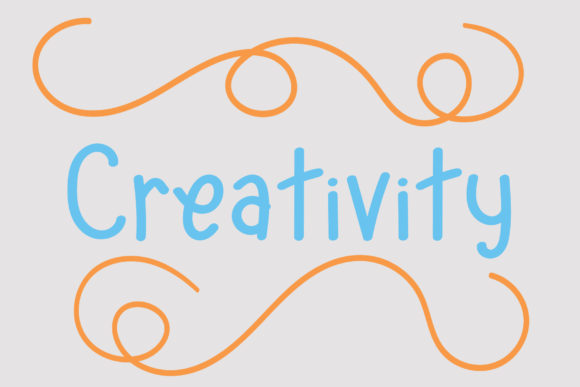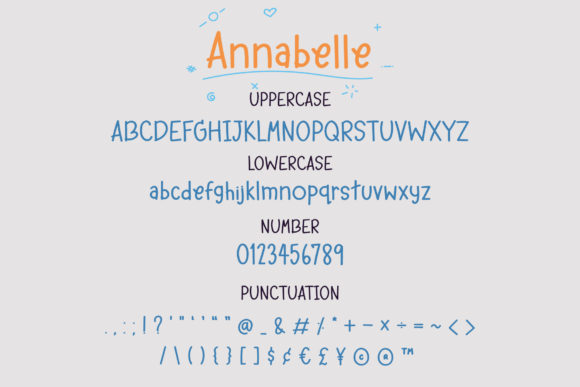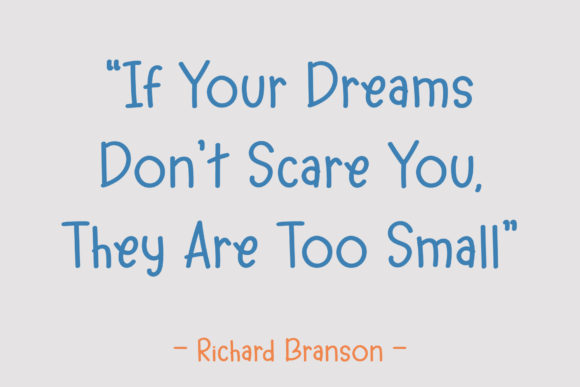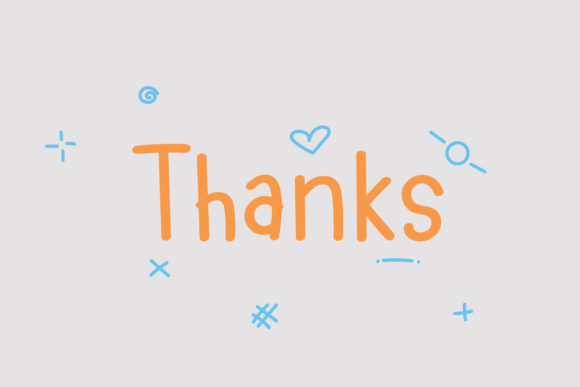
Introducing Annabelle Font: The Sweet and Versatile Handwritten Font
Are you looking for a font that can add a touch of warmth and personality to your designs? Look no further than Annabelle Font, a beautiful handwritten font that is sure to become a favorite in your collection. With its casual charm and versatility, Annabelle is the perfect choice for a wide range of design projects.
The Characteristics of Annabelle Font
Annabelle Font is a carefully handcrafted font that boasts a sweet and versatile handwritten style. Its casual charm makes it appear wonderfully down-to-earth, giving your designs a friendly and approachable feel. The font’s unique characteristics include:
- Handwritten style: Annabelle Font is a genuine handwritten font, crafted with love and care to give your designs a personal touch.
- Casual charm: The font’s casual charm makes it perfect for designs that require a friendly and approachable tone.
- Versatility: Annabelle Font is highly versatile, making it suitable for a wide range of design projects, from headings and titles to body text and more.
The Benefits of Using Annabelle Font
So, why choose Annabelle Font for your designs? Here are just a few benefits of using this beautiful font:
- Easy to read: Annabelle Font is highly legible, making it perfect for use in body text, headings, and titles.
- Highly versatile: The font’s versatility means it can be used in a wide range of design projects, from digital media to print materials.
- Unique and creative: Annabelle Font’s handmade style gives your designs a unique and creative edge, setting them apart from the crowd.
How to Use Annabelle Font in Your Designs
Annabelle Font is an incredibly versatile font that can be used in a wide range of design projects. Here are a few ideas to get you started:
- Headings and titles: Use Annabelle Font to create eye-catching headings and titles that grab attention and add personality to your designs.
- Body text: The font’s legibility makes it perfect for use in body text, adding a touch of warmth and personality to your written content.
- Signage and branding: Annabelle Font is perfect for use in signage and branding projects, giving your business a friendly and approachable image.
- Digital media: The font is highly suitable for use in digital media, including social media graphics, email marketing, and more.
Tips for Getting the Most Out of Annabelle Font
To get the most out of Annabelle Font, here are a few tips to keep in mind:
- Experiment with colors: Annabelle Font looks great in a wide range of colors, so don’t be afraid to experiment and find the perfect hue for your design.
- Mix and match: Try pairing Annabelle Font with other fonts to create a unique and creative look.
- Use it in combination with images: The font’s casual charm makes it perfect for use in combination with images, adding a touch of personality to your designs.
In conclusion, Annabelle Font is a sweet and versatile handwritten font that is sure to become a favorite in your collection. With its casual charm, versatility, and highly legible style, it’s the perfect choice for a wide range of design projects. Whether you’re a designer, crafter, or simply someone who loves typography, Annabelle Font is a must-have font that is sure to inspire and delight.
Key Features of Annabelle Font
- Handwritten font with a casual and friendly style
- Highly legible and versatile
- Suitable for a wide range of design projects, including headings, titles, body text, and more
- Perfect for use in digital media, print materials, signage, and branding
Whether you’re looking to add a touch of warmth and personality to your designs or simply want to try out a new font, Annabelle Font is an excellent choice. So why not give it a try and see the difference it can make in your designs?